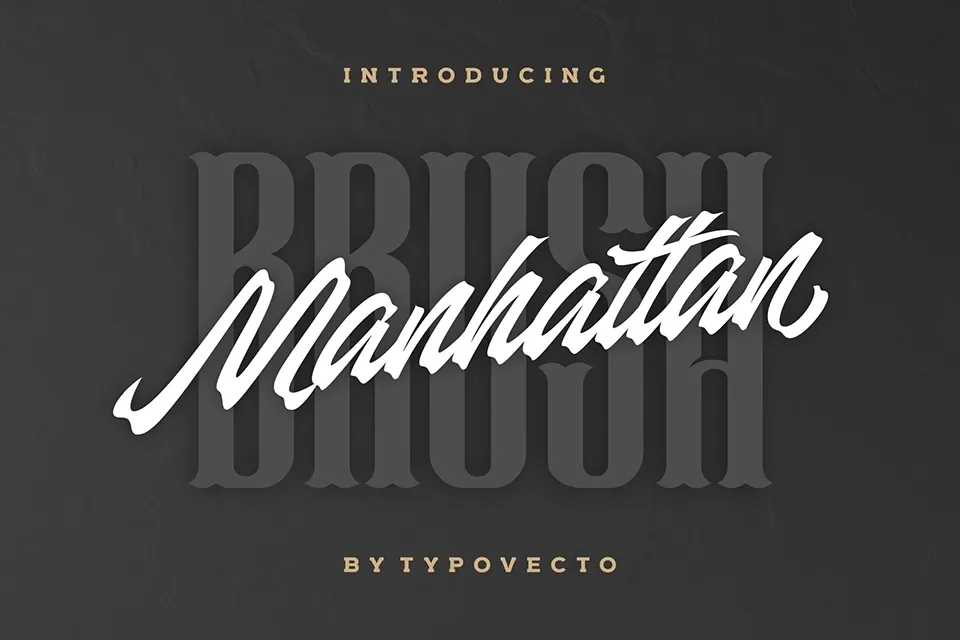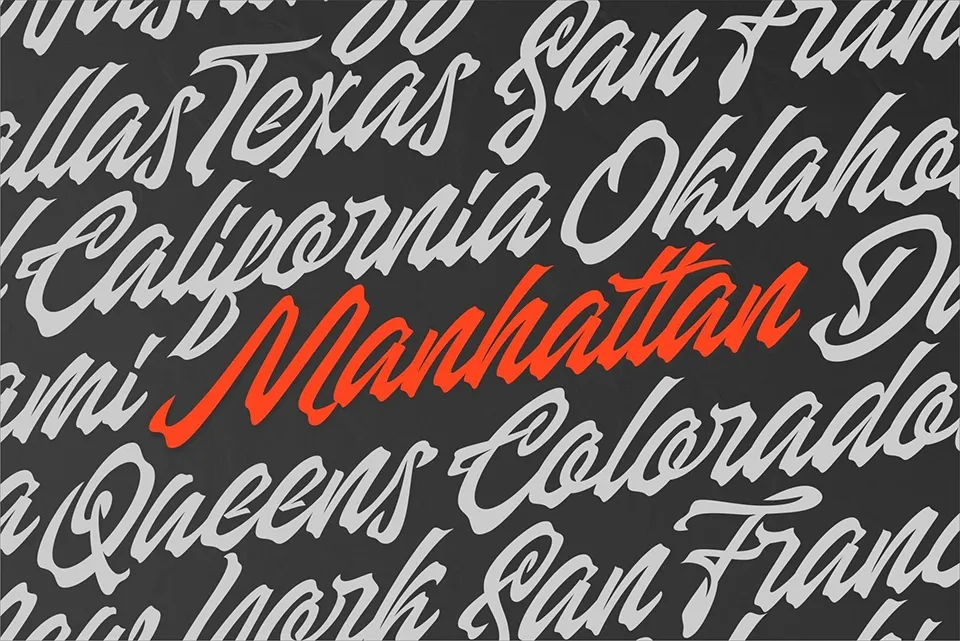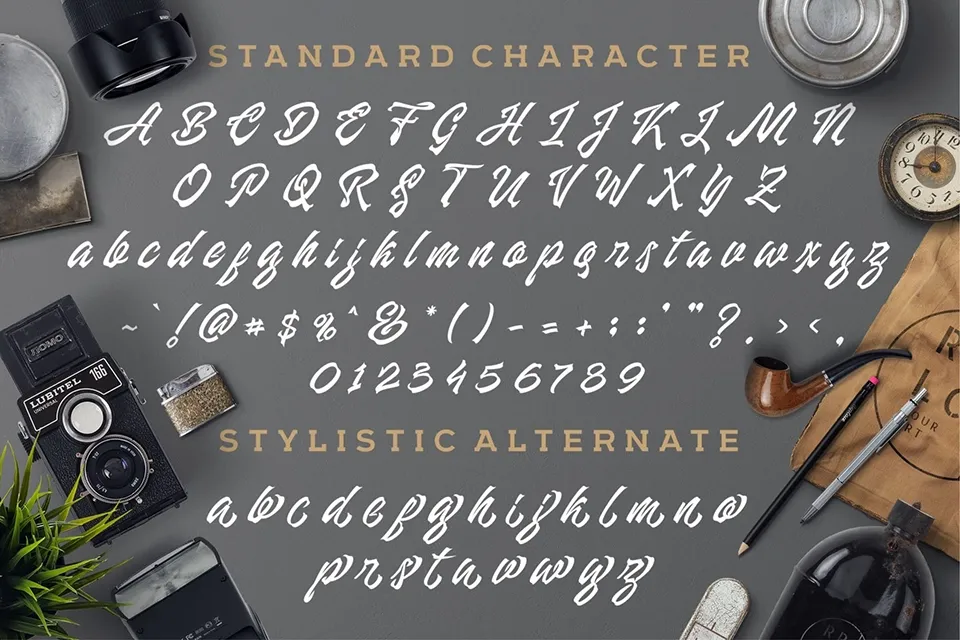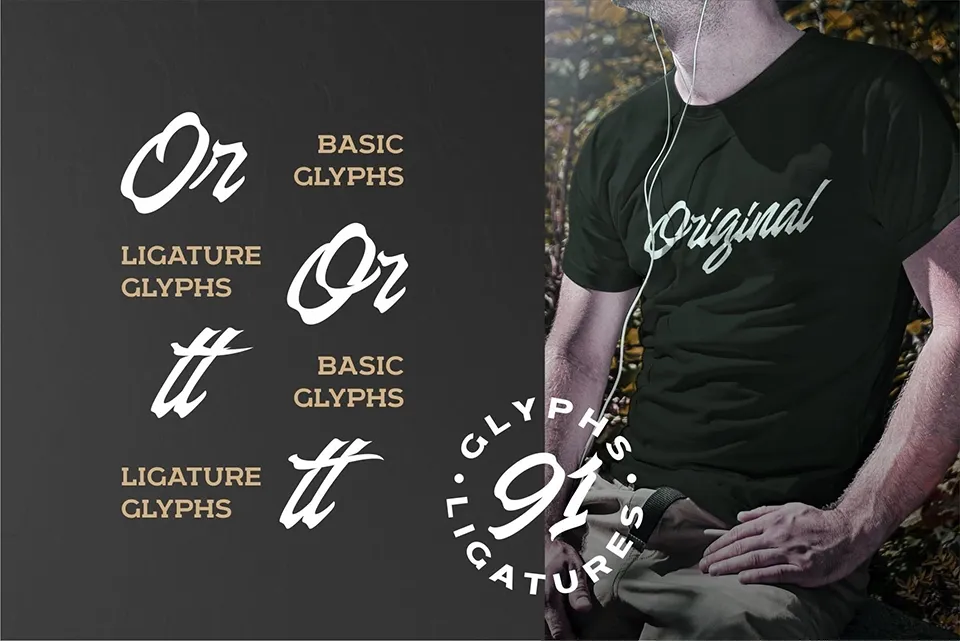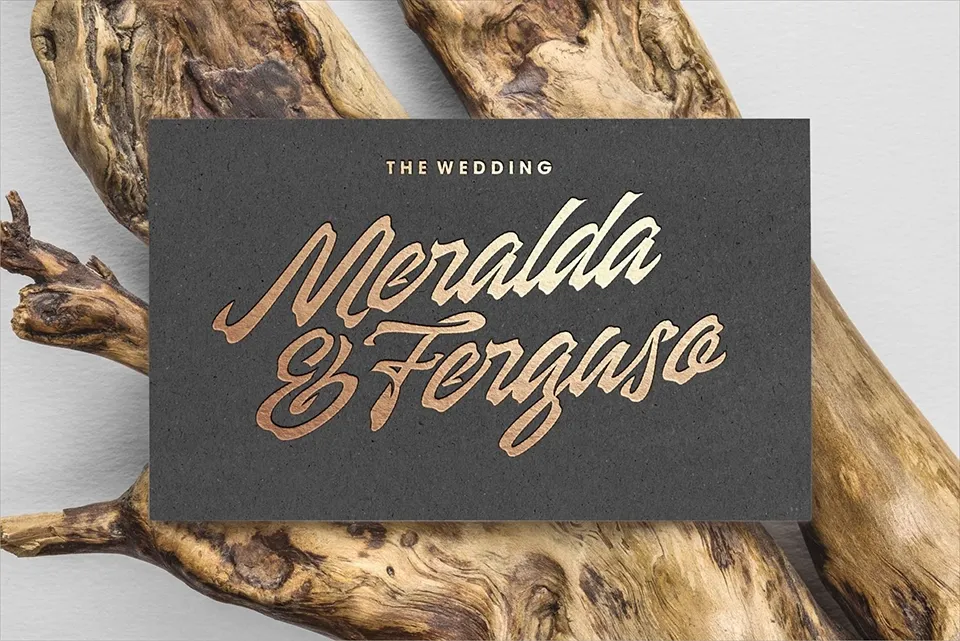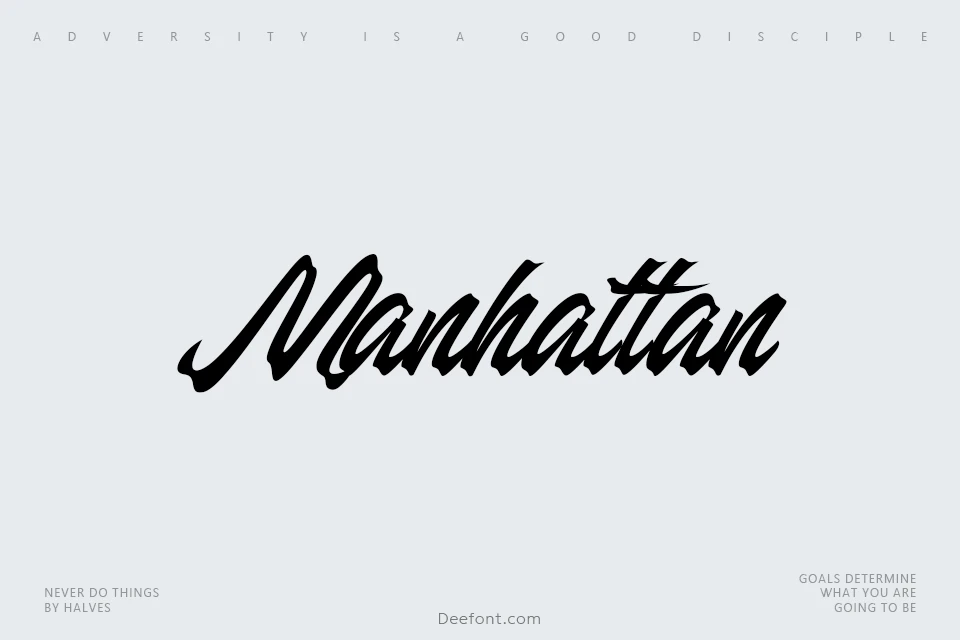
Manhattan Brush Font
Manhattan Brush Font is a sophisticated handwritten script that perfectly balances carefree elegance with bold expression. This versatile typeface features a light appearance enhanced by rich brush textures, creating a distinctive visual signature that commands attention while maintaining refined aesthetics.
Manhattan Brush Font represents the perfect marriage of artistry and functionality. Its unique combination of carefree energy and refined elegance makes it an exceptional choice for designers seeking a typeface with authentic character and versatile application. Whether used for high-end branding or casual creative projects, Manhattan delivers a compelling visual voice that resonates with contemporary audiences while maintaining timeless appeal.